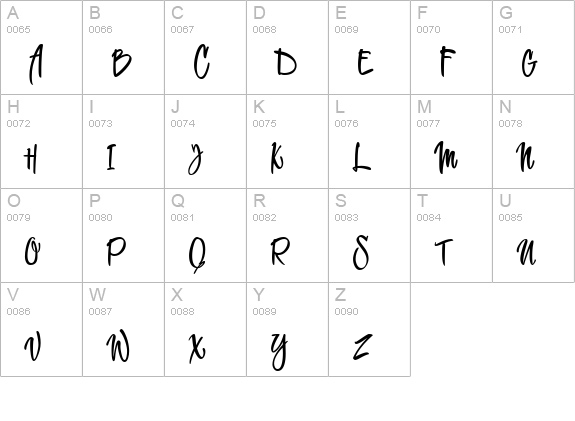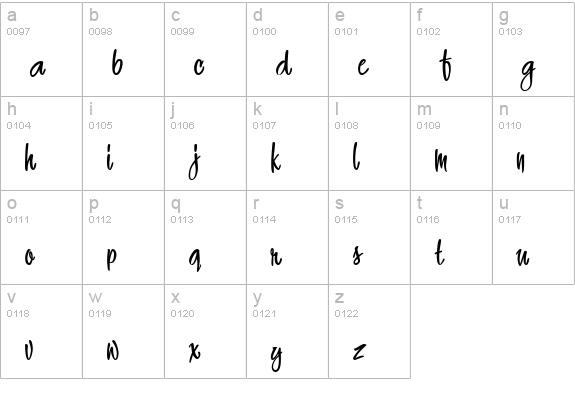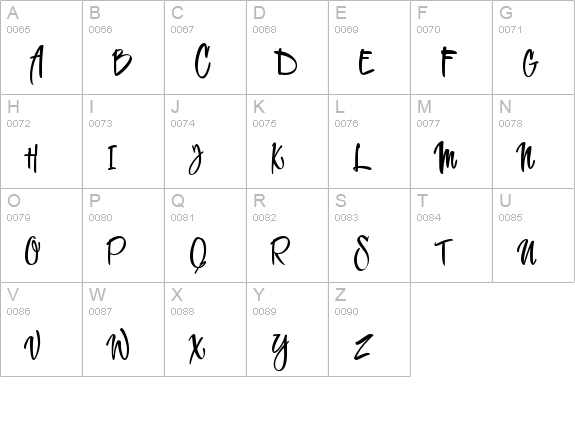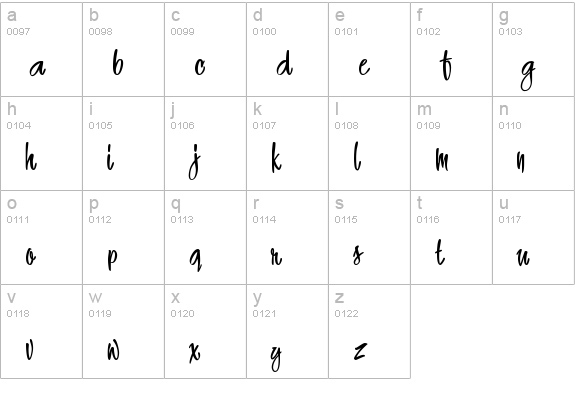
1 Snappy DNA Font Details
Introducing the Snappy DNA font - a dynamic and modern typeface that exudes energy and creativity. With its bold and eye-catching design, Snappy DNA is perfect for making a statement in any project. This font is versatile and can be used for a variety of purposes, from branding to advertising to social media graphics. What's even better is that Snappy DNA is available for free download at FontsMarket.com. That's right, you can get your hands on this unique font without spending a dime. So why wait? Add a touch of flair and personality to your designs with the Snappy DNA font today!